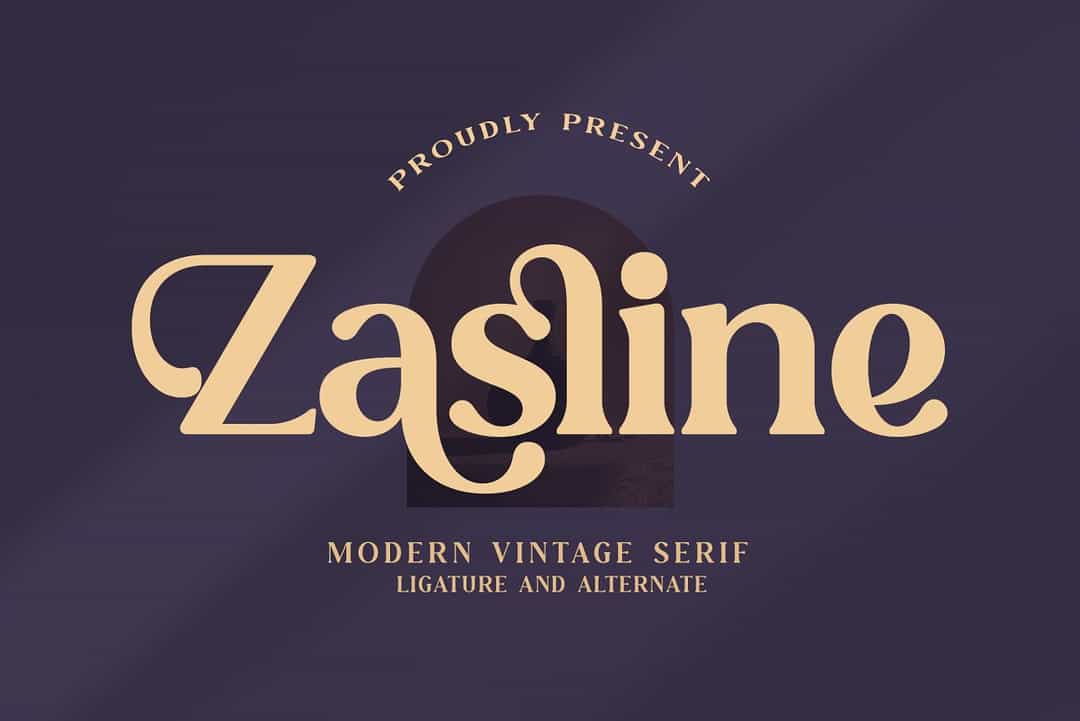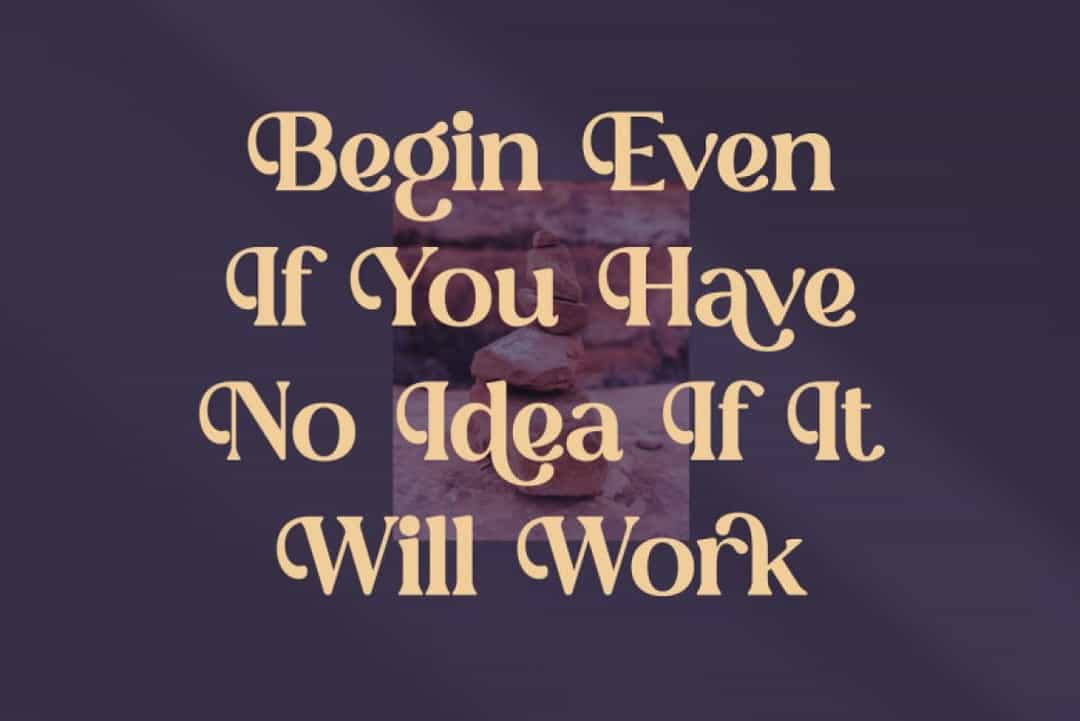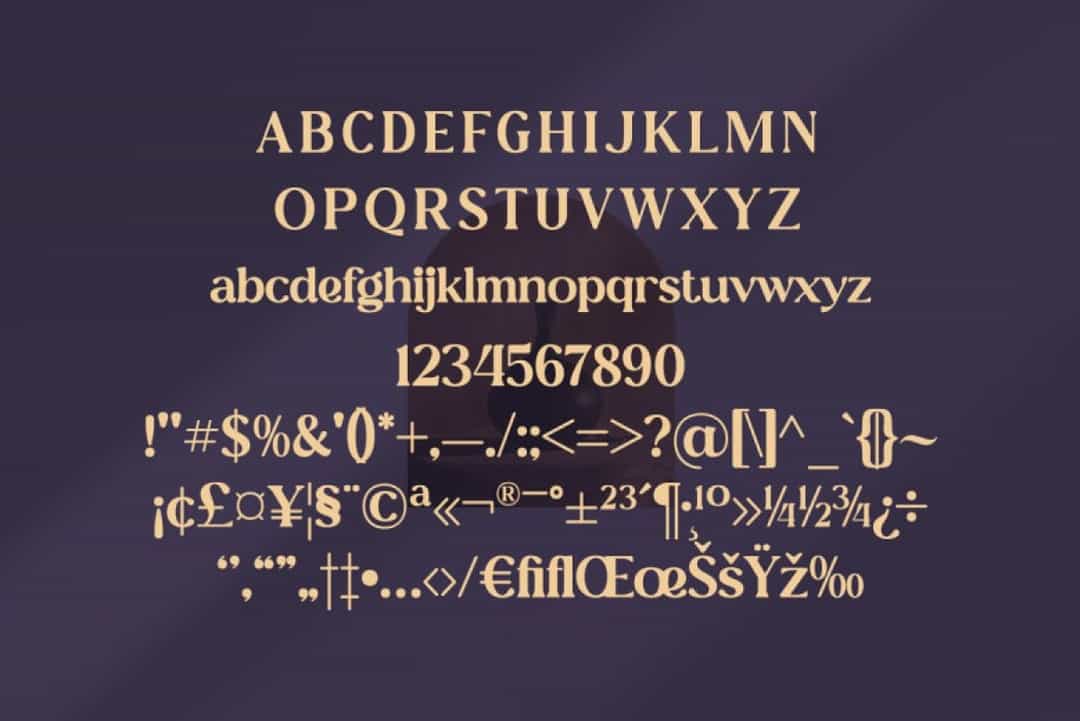
Discover Zasline Font, part of the Serif Vintage collection—a versatile and unique font perfect for adding a personal touch to your projects. Download it for free and enjoy crafting designs with style, from invitations to social media posts. This font is available exclusively for personal use, giving you the freedom to create without limits. Unlock your creativity with Zasline Font today!
Storytype’s Zasline Vintage Serif Font is an eye-catching modern serif and classic font with its own distinctive style and contemporary appeal, ideal for creating classy logos, movie or book title designs, clothing brands and magazines as well as quotes or other quotes containing text – great for logo design! This font can help bring any project alive with elegance!